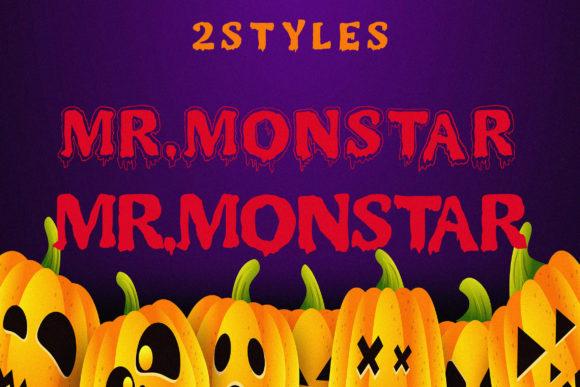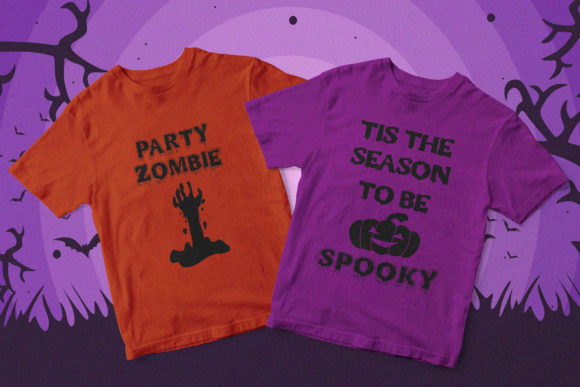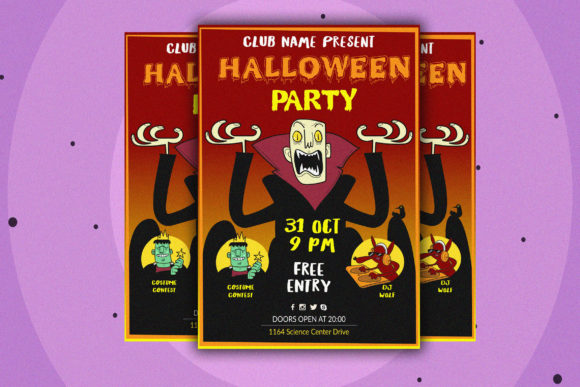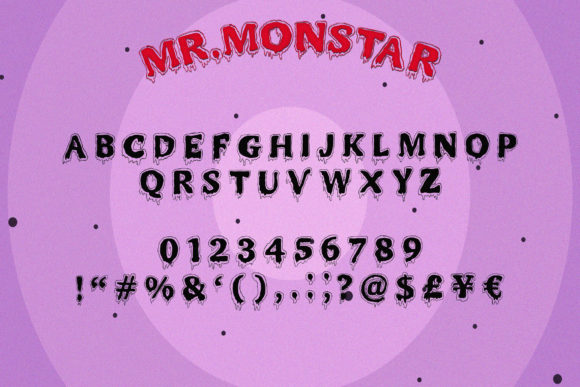
Introduction to Mr. Monstar Font
Have you ever found yourself staring at a blank canvas, trying to conjure up the perfect design for a spooky Halloween project? The trick-or-treaters are knocking on your door, but your creativity is stuck in a graveyard of ideas. Don’t worry, we’ve got just the thing to bring your design to life – the Mr. Monstar Font.
This charming display typeface is the perfect addition to any design project that requires a touch of personality. With its spooky flair and high-quality design, the Mr. Monstar Font is a valuable resource for designers looking to add a little magic to their creative projects.
Whether you’re working on a design for a haunted house, a creepy carnival, or just a fun little trick-or-treat invitation, the Mr. Monstar Font is sure to bring a smile to your face – and a touch of sophistication to your design.
Key Features of Mr. Monstar Font
- Unique Character Design: Mr. Monstar Font features a distinctive and quirky character design, making it perfect for creative projects.
- High-Quality Graphics: Mr. Monstar Font is designed with high-quality graphics, ensuring that your designs look professional and polished.
- Transparent Background: This font features a transparent background, allowing for easy integration with other design elements.
Honest Review: Mr. Monstar Font
As a designer, I’m always on the lookout for high-quality design resources to elevate my creative projects. Recently, I had the chance to try out the Mr. Monstar Font, and I’m excited to share my honest review with you.
- Unique and playful design: The Mr. Monstar Font is perfect for adding a touch of whimsy to your design projects.
- High-quality glyphs: The font’s characters are well-designed and easy to read, making it perfect for both digital and print projects.
- Transparent background: The font’s transparent background makes it easy to use on any design background.
- Limited font family: The Mr. Monstar Font is a single font family, which may not be suitable for projects that require a more extensive font library.
- No bold or italic variations: While the font is perfect for regular text, it lacks bold and italic variations, which may limit its use in certain design contexts.
Getting the Most Out of Mr. Monstar Font
To get the most out of Mr. Monstar Font, use it on a transparent background and experiment with different font sizes and styles.
Mr. Monstar Font is commonly used in:
- Print and digital advertisements
Alternatives to Mr. Monstar Font
Does the Mr. Monstar Font have a transparent background?
Yes, the Mr. Monstar Font has a transparent background, making it perfect for use in designs that require a high level of design flexibility. The font’s transparent background allows you to easily layer it over other design elements or backgrounds.